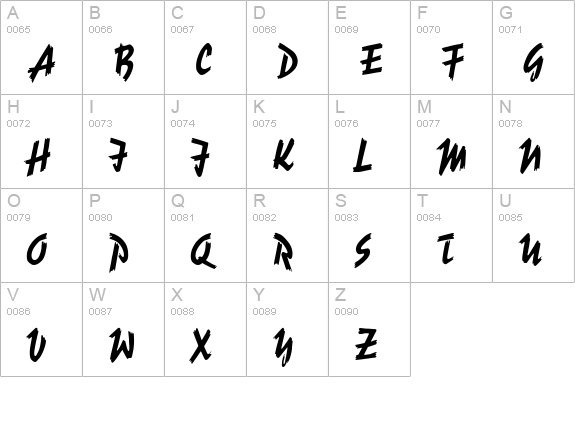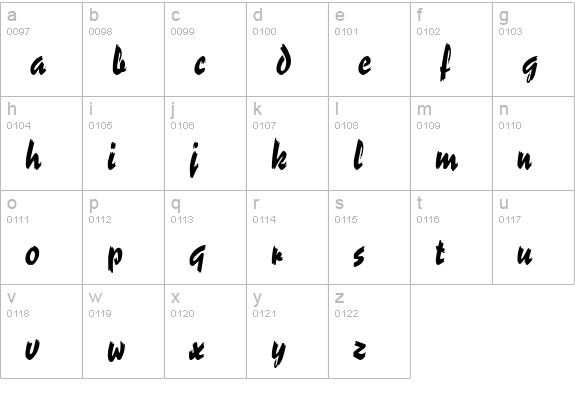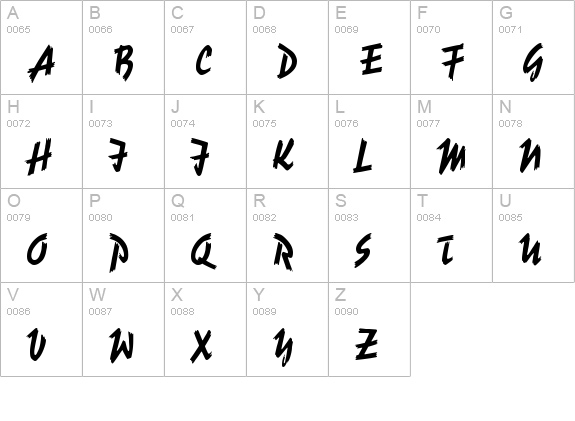
Introducing the exquisite Roland font, a versatile typeface that exudes elegance and sophistication. With its sleek lines and modern design, Roland is the perfect choice for a wide range of projects, from branding to editorial design. This timeless font boasts a unique blend of classic charm and contemporary style, making it a versatile addition to any designer's toolkit. The best part? Roland font is available for free download at FontsMarket.com. That's right, you can enhance your designs with this stunning typeface without any cost. Don't miss out on the opportunity to elevate your projects with the timeless beauty of Roland font. Download it today and unlock endless creative possibilities!